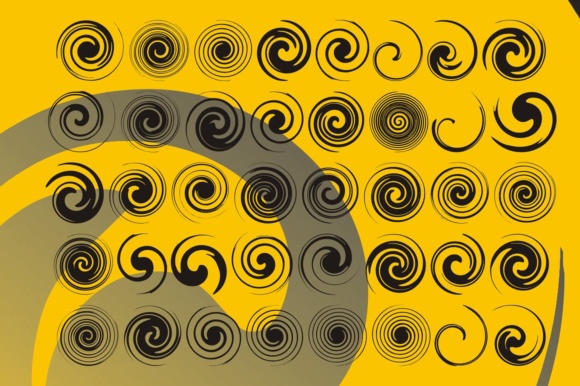
Swirlies Font
Swirlies is a versatile dingbat font that offers a collection of over 50 decorative glyphs in various swirl and flourish designs. These swirlies are ready to use, providing a quick and easy way to add ornamental elements to your designs.
With Swirlies, you can instantly enhance your projects with elegant and decorative touches. The glyphs in this font are designed to be visually appealing and can be used in a variety of creative applications. Whether you’re designing invitations, logos, greeting cards, or any other graphic design project, Swirlies can bring a touch of sophistication and charm.
The beauty of using a dingbat font like Swirlies is the convenience and flexibility it offers. Instead of searching for individual swirl designs or creating them from scratch, you can simply type the corresponding letter or character on your keyboard to insert the desired glyph. This saves you time and effort, allowing you to focus on the overall design and composition.
Furthermore, Swirlies can be easily adjusted to fit your specific needs. You can resize, rotate, and combine the glyphs to create unique arrangements and patterns. Whether you want to create borders, frames, dividers, or simply add embellishments to your typography, the possibilities with Swirlies are virtually endless.
In summary, Swirlies is a convenient and versatile dingbat font that provides you with over 50 ready-to-use swirl and flourish glyphs. Whether you’re a designer, a crafter, or simply looking to add some decorative elements to your projects, Swirlies offers a quick and easy solution. With its variety of designs and compatibility with different software, Swirlies allows you to effortlessly elevate the visual appeal of your designs and create eye-catching compositions.